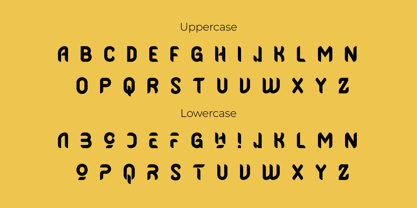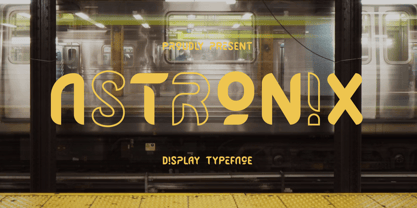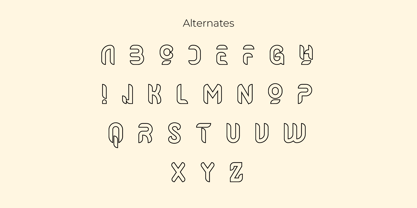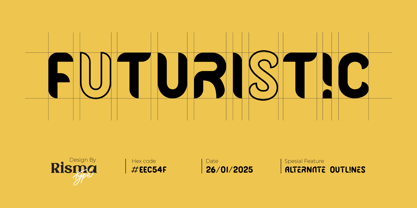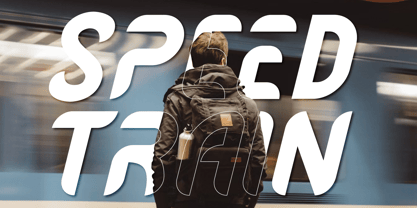
Astronix
The Astronix Font Family was designed by Risma Mulyasari and published by Risma Type. Astronix contains 2 styles and family package options. More about this family
✨ Astronix ✨
Futuristic and Sleek Display Font
Astronix is a display font crafted to radiate modernity and futuristic charm. With its sleek lines and distinctive style, this font is perfect for projects that require a cutting-edge and innovative aesthetic, such as:
• Branding & Logos: Deliver a refined, modern statement.
• Posters & Advertising: Create compelling and stylish visuals.
• Web & Digital Designs: Add a contemporary touch to your layouts.
💎 Redefine your designs with the sleek elegance of Astronix.
Elevate creativity with a font that sets new design standards!